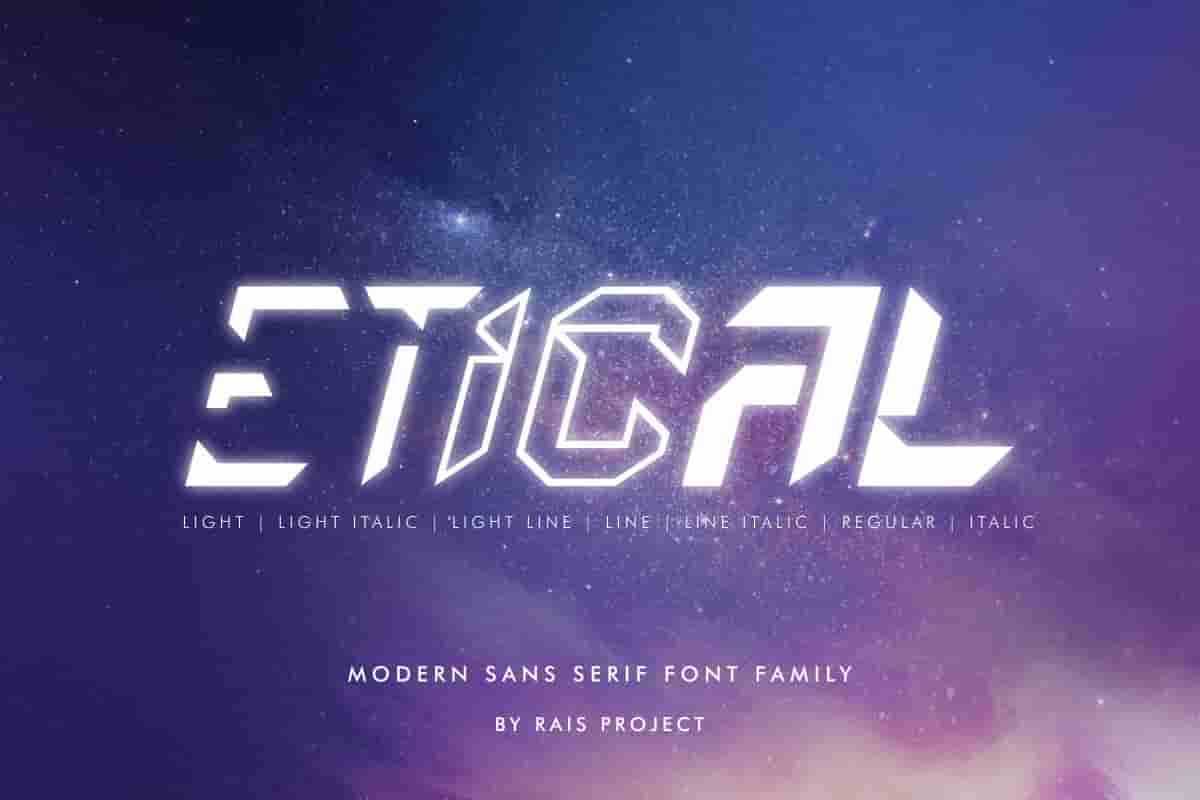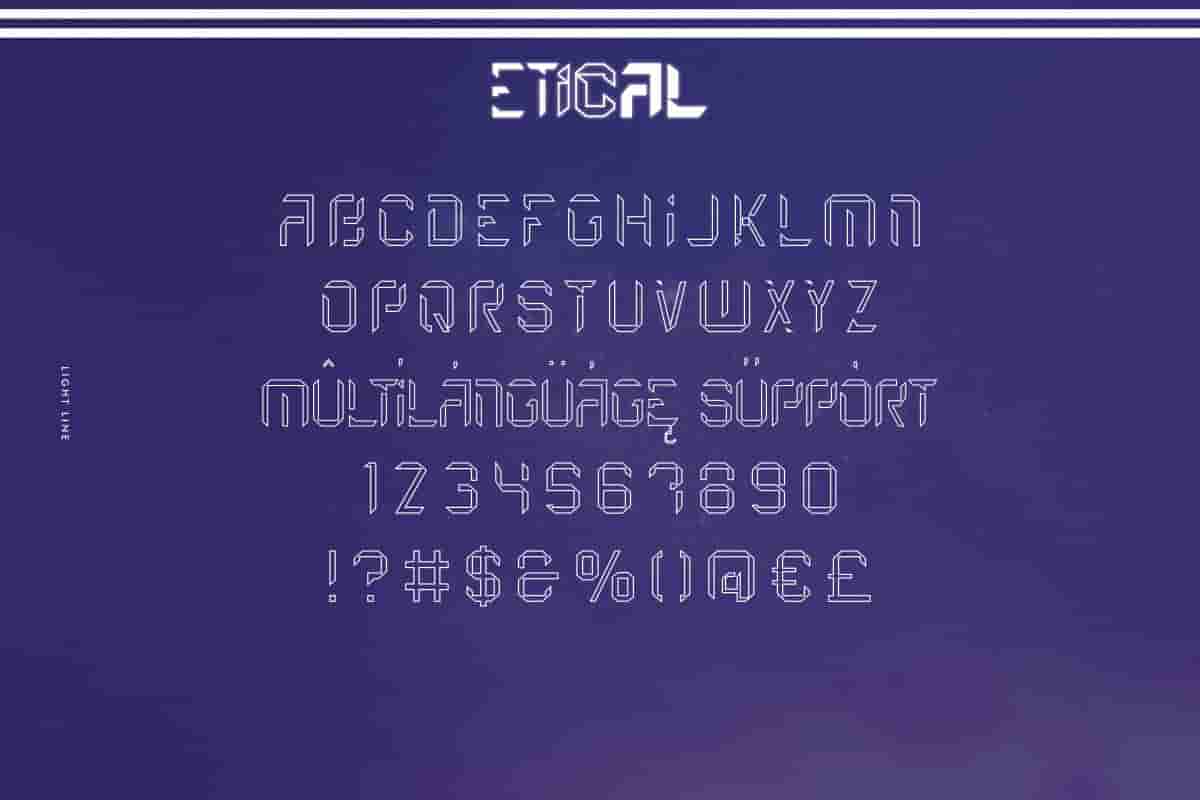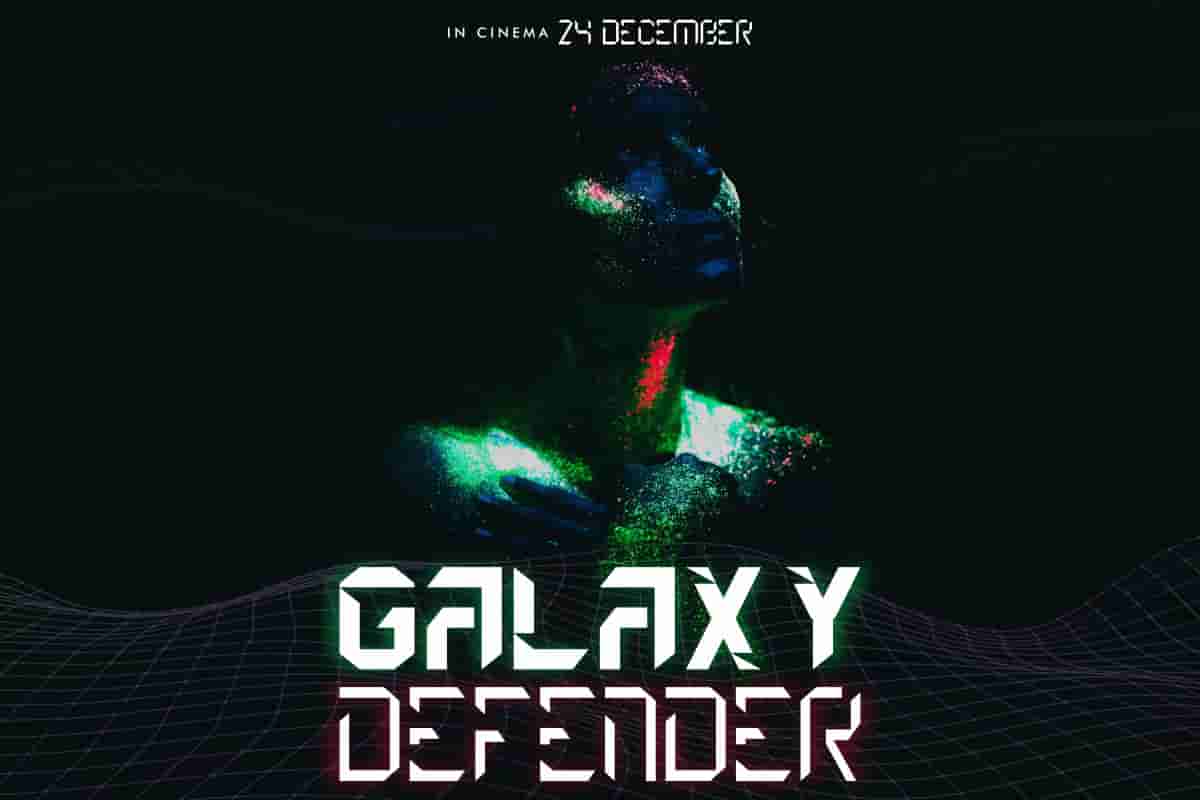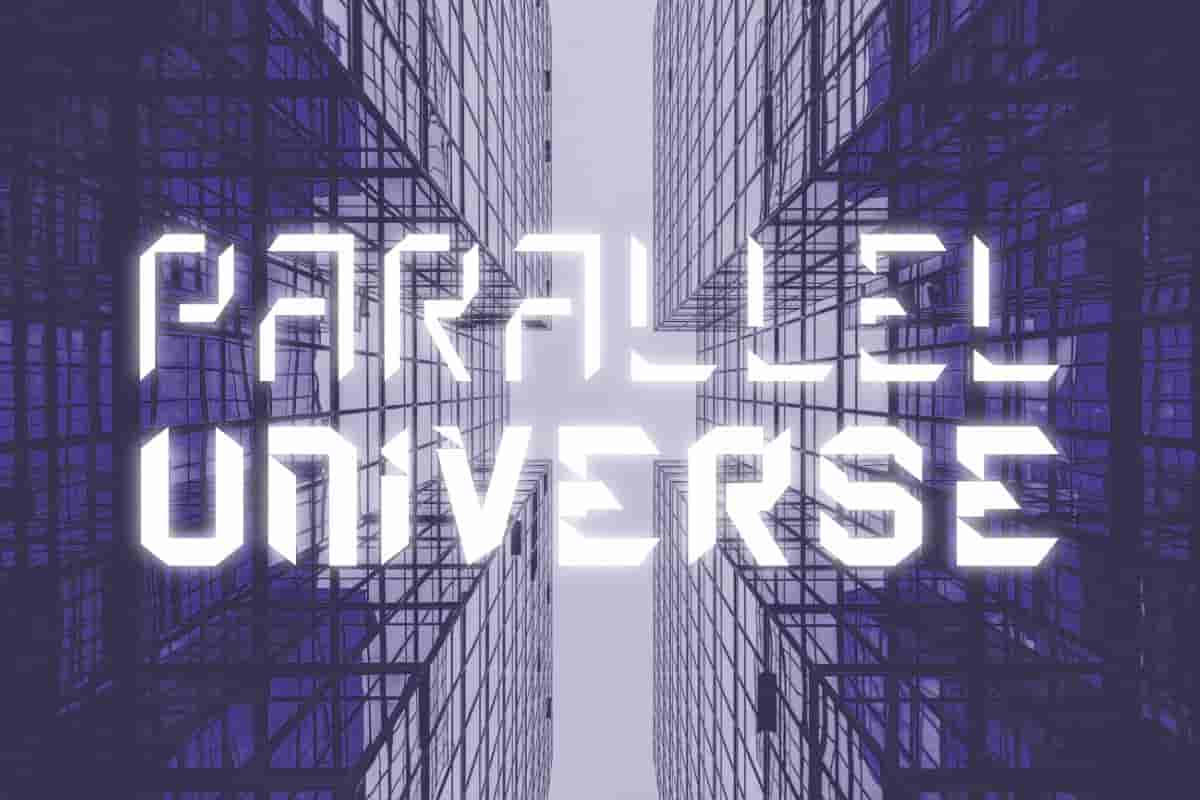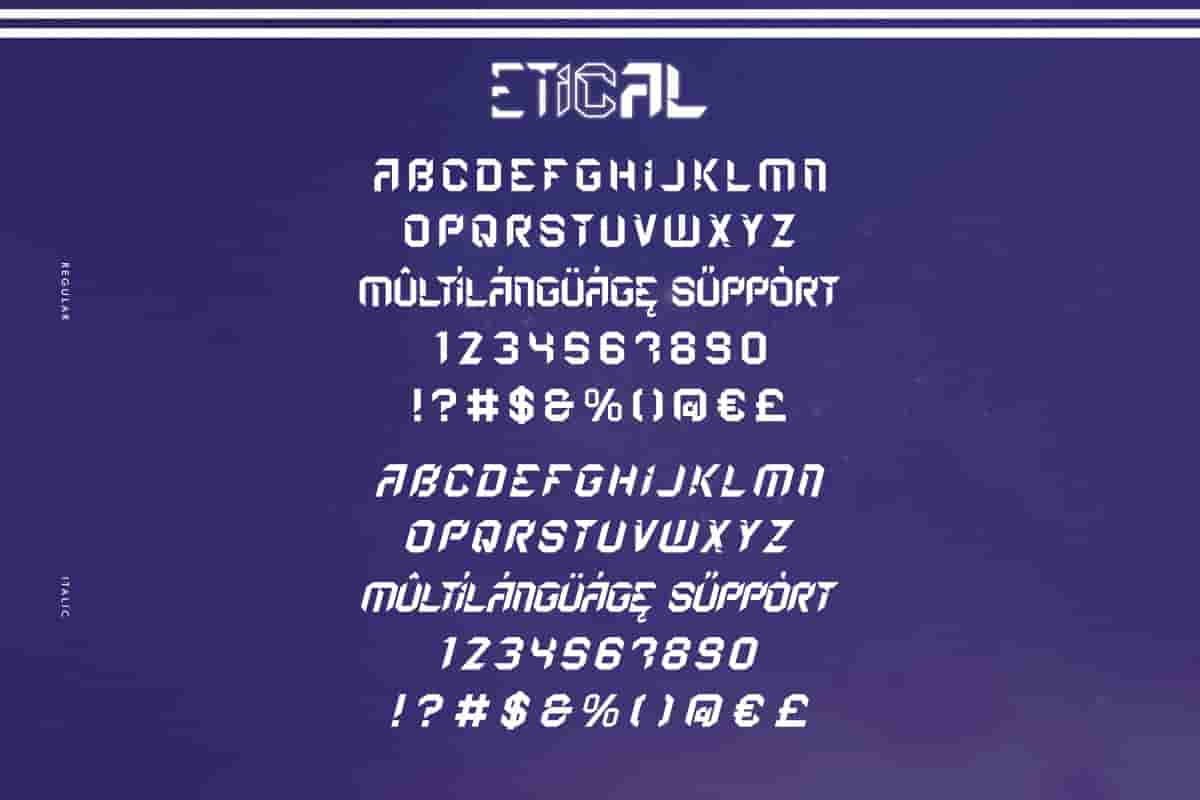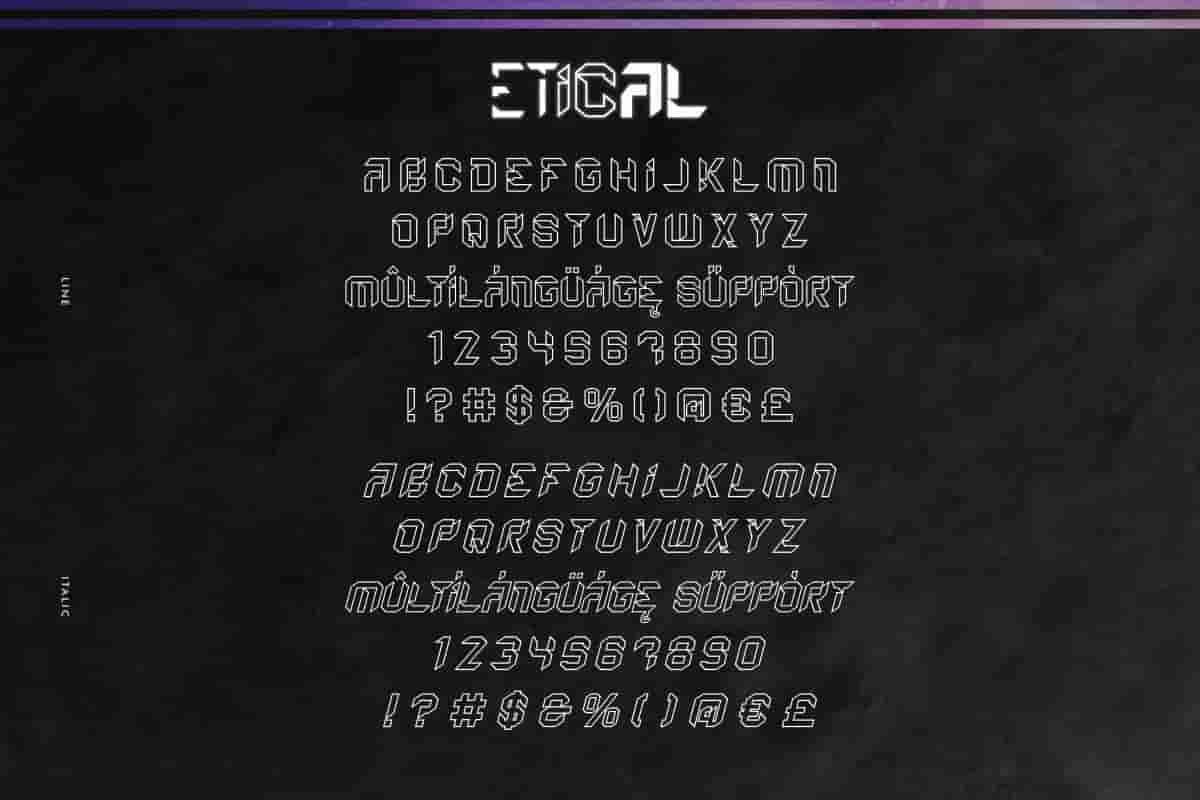
Etical Sans Serif Font
Etical Font is a display decorative sans serif font family, designed by Rais Project. The font has six different styles that great for Cosmetic, Beauty, Technology, Game, Magazine, Music, Sport etc.
Etical Font is a Sans Serif futuristic font family, designed by RaisProject. It is our new font on the market. It has clean, modern and stylish style. You can see the demo font below.You can also input any word you want so you can see what it will look like:
Etical Font remotely made by RaisProject team in Indonesia.The font was handcrafted for any your special projects including : headlines, promotion, events, branding, advertising, magazine, signage, invitation, stationery, social media posts, label, or and any projects that need unique strong style. The theme/industries of this font is Futuristic, Beauty, Technology, Game, Magazine, Music, Spaceship, aircraft etc. AGROZZA Font includes full set of gorgeous uppercase and numerals characters. On the package You will get: